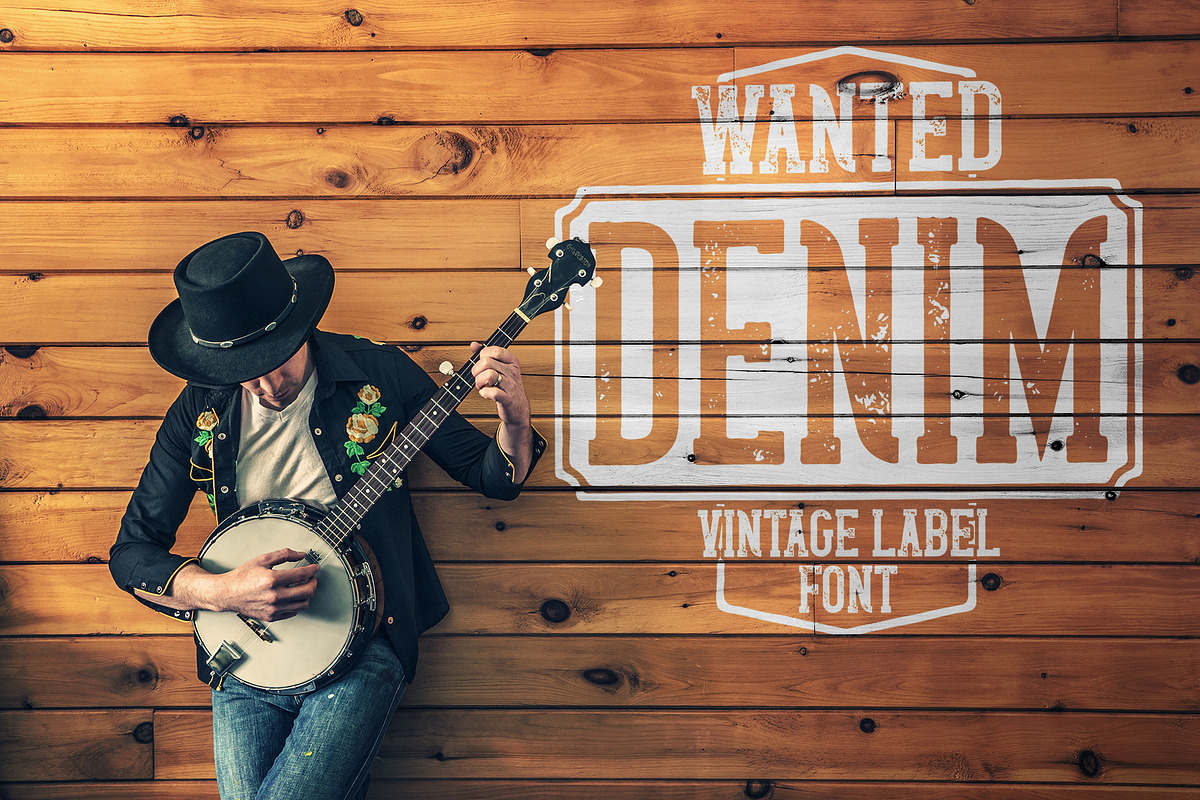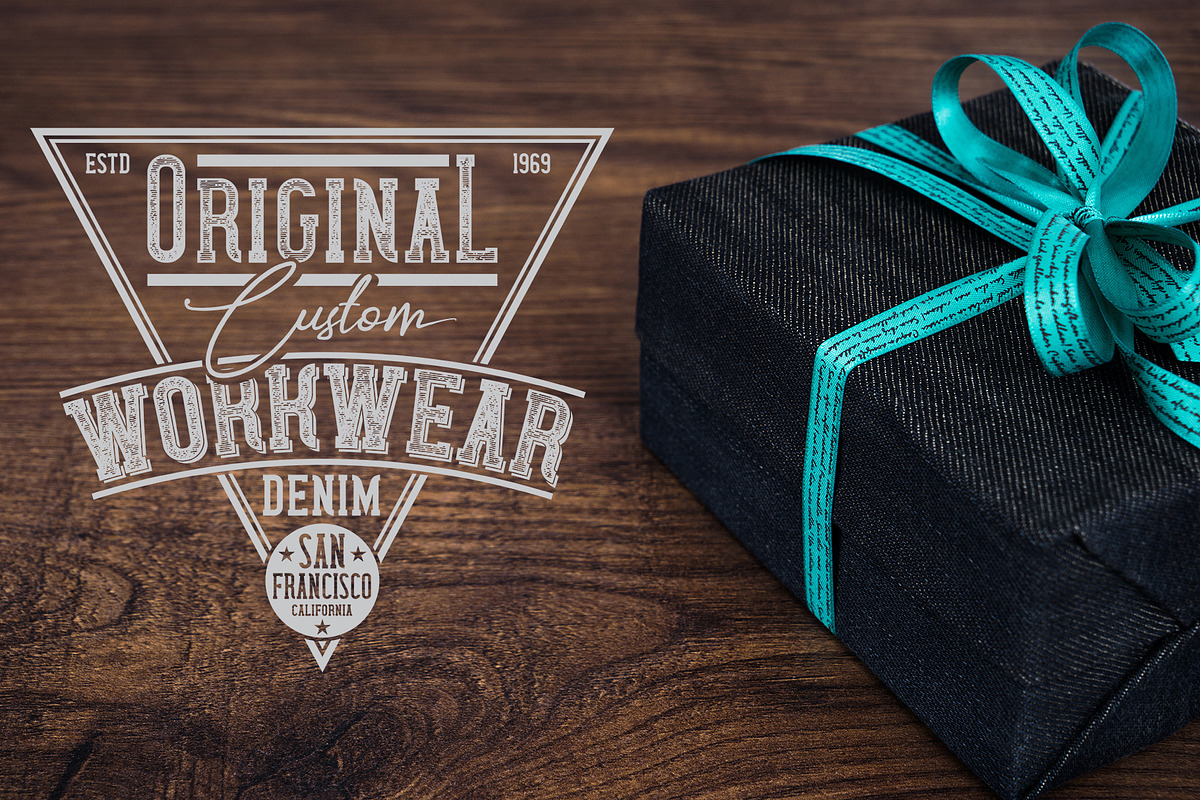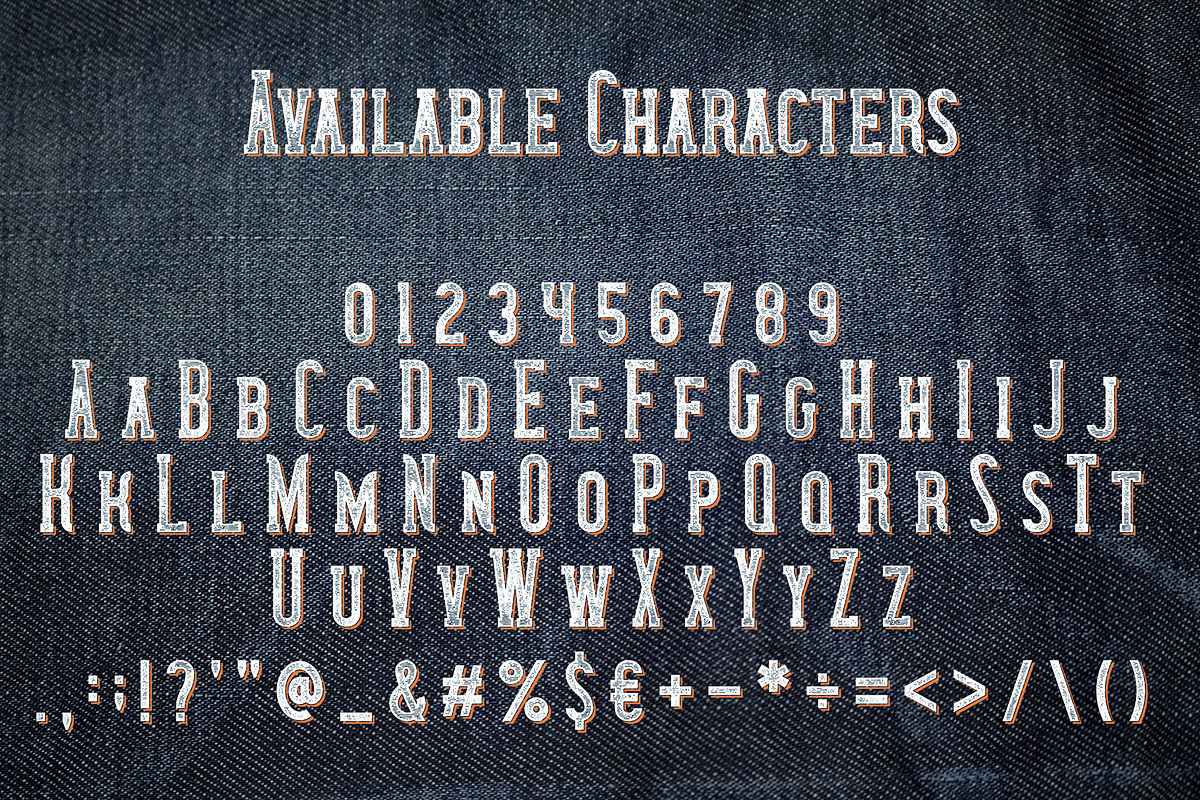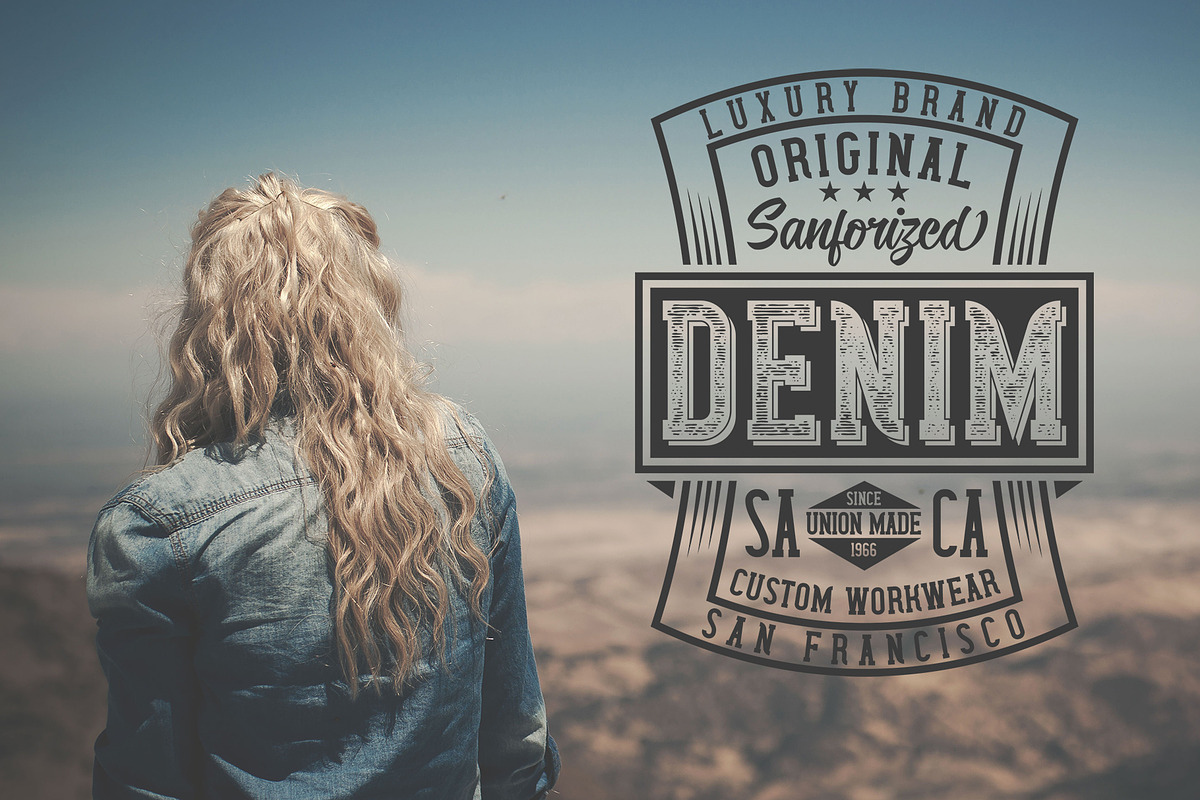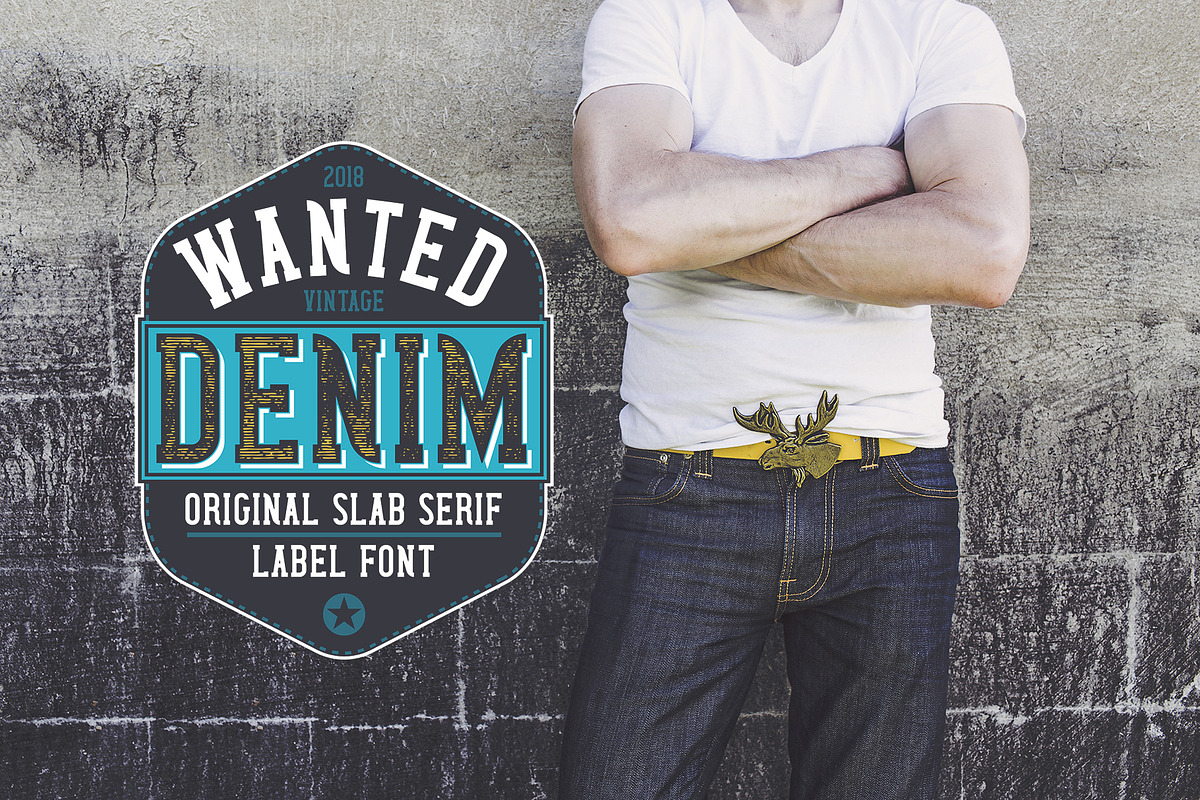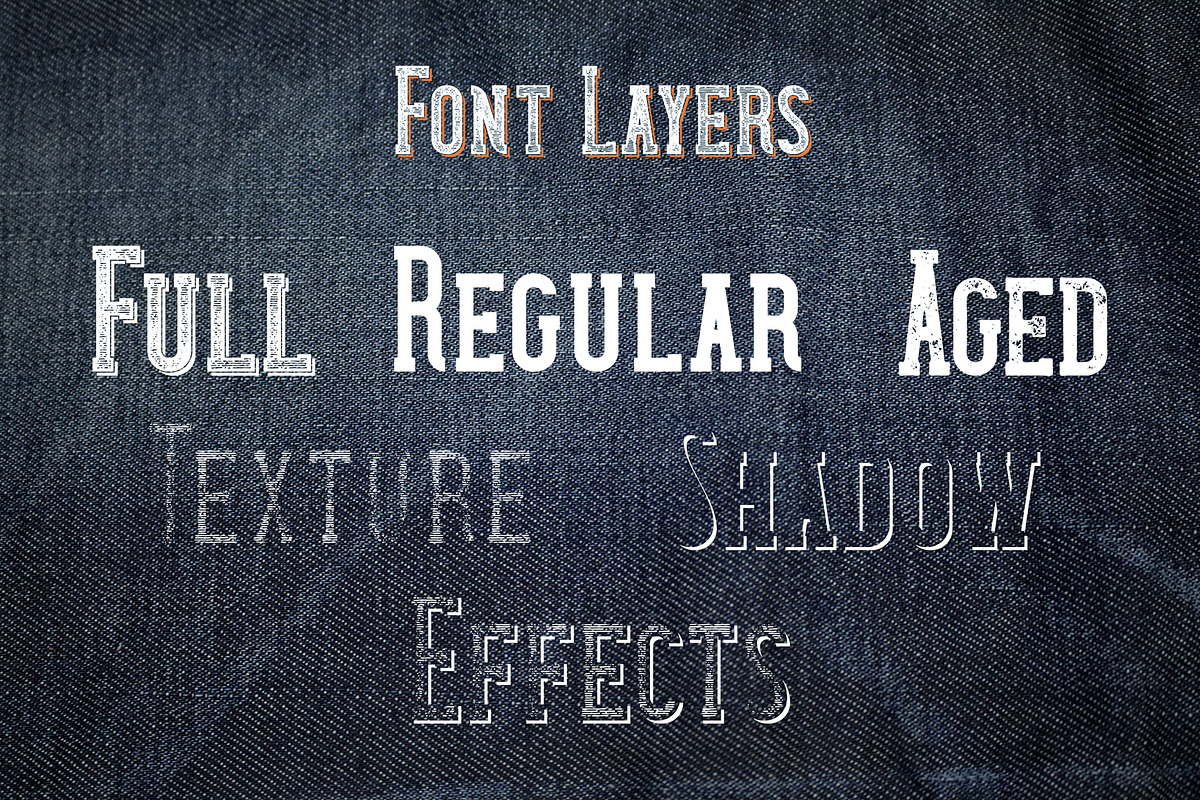
Wanted Denim layered font
Introducing a vintage look layered label font named "Wanted Denim". This font was inspired by classic slab serif fonts from denim labels and logos. Typeface includes six styles (including effect styles), for sample look at 3rd preview. This font will good viewed on any retro design like poster, t-shirt, label, logo etc.
- Typeface includes six styles (including effect styles), for sample look at 3rd preview.
- Wanted Denim Regular
- Wanted Denim Aged
- Wanted Denim Effects
- Wanted Denim Full
- Wanted Denim Shadow
- Wanted Denim Texture